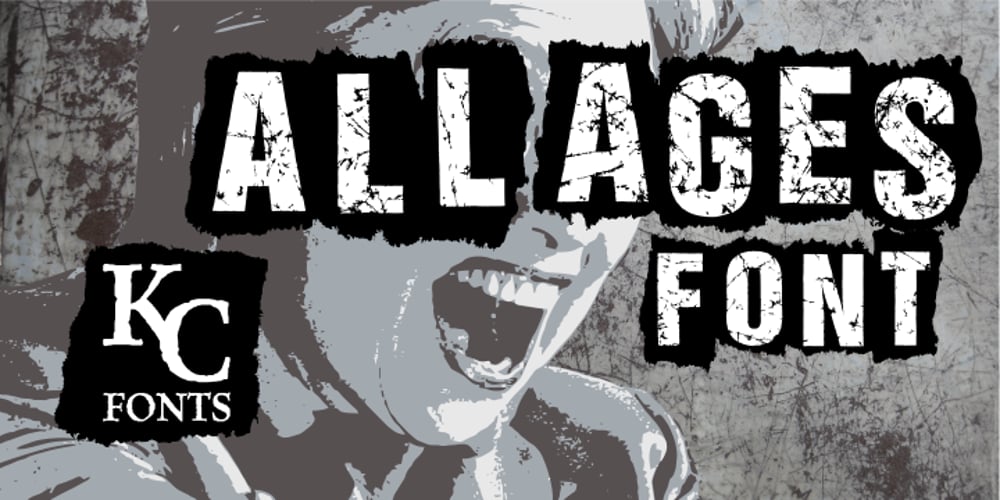
All Ages Font Family was designed by Kevin Christopher and published by KC Fonts. All Ages contains 4 styles and family package options. All Ages is a true punk rock font. It has the same look and feel that you see wrapped around a light post telling you where the next show of your favorite band will be. All Ages will work with any of your headline, in your face, stylized design needs and it looks great BIG or small! For a customized look to your works, switch between uppercase and lowercase for a change of grunge to the letters, italics are also available. You can also use All Ages in layers if your background is a little too busy by using All Ages Letters on top of the All Ages Ripped Paper, you can even use All Ages Letters on it’s own for an alternate look. Each font includes a character set large enough to support you international punkers with multilingual characters.